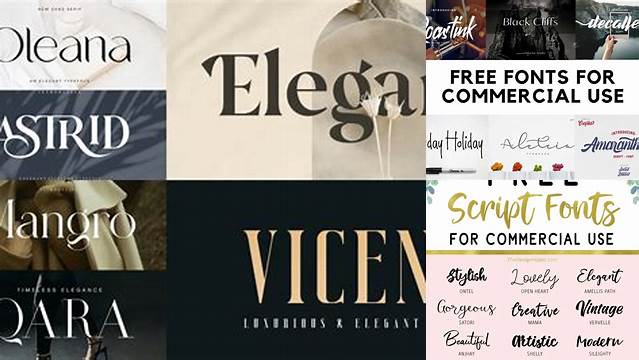
Download Free Elegant Fonts For Commercial Use
Hey there, design enthusiasts! Are you on the hunt for some stunning fonts to elevate your projects without breaking the bank? You're in the right place! Finding elegant fonts free for commercial use can be a game-changer for any designer, small business owner, or anyone looking to add a touch of sophistication to their work. This article is packed with resources and insights to help you find the perfect fonts to make your designs shine, all while staying within your budget. Get ready to explore the world of free, elegant fonts and take your creative projects to the next level!
3. Defining "Elegant" in Font Styles
What makes a font "elegant" anyway? It's all about the subtle details. Elegant fonts often have characteristics that convey sophistication, grace, and timelessness. Think of features like delicate serifs, flowing scripts, and clean, modern sans-serifs. Serif fonts, with their small strokes at the ends of letters, often evoke a sense of tradition and refinement. Script fonts, which mimic handwriting, can add a touch of artistry and personalization. Sans-serif fonts, those without serifs, can be incredibly elegant when they are well-designed, with clean lines and balanced proportions. The key is to choose fonts that complement your overall design aesthetic and the message you want to communicate. For instance, a classic serif font might be perfect for a high-end brand, while a modern sans-serif could be ideal for a tech company's website. The best elegant fonts avoid being overly ornate, which can make them difficult to read. Instead, they focus on a balance of form and function, making them visually appealing and easy to engage with. Consider how the font looks at different sizes, and how it pairs with other design elements. This ensures the font contributes positively to the overall user experience.
4. Serif Fonts for Sophisticated Designs
Serif fonts are the backbone of many elegant designs. They carry a sense of history, authority, and classic appeal. Several serif fonts are readily available for free commercial use and are perfect for projects that require a touch of sophistication. Baskerville is a timeless classic, known for its elegance and readability. Playfair Display offers a more contemporary take, with high contrast and a stylish appearance. Lora is another beautiful choice, designed specifically for screen readability, making it great for website content. Crimson Text is a free alternative to the renowned Garamond font, known for its legibility and grace. Georgia, often included as a system font, is another excellent choice for longer-form content, providing a sense of refinement without being overbearing. To choose the right serif font, consider the tone of your project. For a formal or high-end brand, a more traditional serif like Baskerville might be perfect. For something more modern, but still elegant, Playfair Display or Lora would be great choices. Always make sure the font has good character spacing and that it is readable at various sizes. Pairing a serif font with a clean, simple sans-serif font for headers can create a visually balanced and sophisticated look. The goal is to find a serif that compliments your project goals. By selecting a suitable serif, you can elevate your designs to be more elegant and impactful.
5. Script Fonts: Adding a Personal Touch
Script fonts, with their flowing lines and graceful curves, bring a personal and artistic touch to any design. When used carefully, these fonts can inject a sense of elegance, romance, or creativity. Many free script fonts are available for commercial use, offering a range of styles from delicate calligraphy to bold brushstrokes. Great Vibes is an elegant calligraphic script perfect for wedding invitations and romantic designs. Dancing Script offers a more informal, yet still elegant, handwritten feel. Satisfy is a more playful brush script, ideal for branding that requires a touch of whimsy. Pacifico is a vintage-inspired script that is perfect for retro designs. However, it’s important to use script fonts sparingly, as they can be difficult to read in large blocks of text. They work best for headlines, titles, and short pieces of text where you want to make a visual statement. When choosing a script font, consider the personality of your project and the readability. If the font is hard to read, it won't serve its purpose. Make sure the script font you choose pairs well with a clean sans-serif or a classic serif font. This contrast helps balance the design and makes the script font stand out. Think about how the script font can enhance your brand's message. With the correct use, a script font can provide your designs with a distinctive, elegant flair that resonates with your audience.
6. Modern Sans-Serif Fonts for a Clean Look
Sans-serif fonts offer a clean and contemporary aesthetic, making them a popular choice for modern, elegant designs. These fonts lack the serifs, making them sleek and easy to read, particularly on screens. There is an array of free sans-serif fonts that can be used in commercial projects. Open Sans is a versatile and highly readable option, often used for website content. Lato is another popular choice, known for its balanced proportions and friendly appearance. Montserrat is a geometric sans-serif font that works well in headings and display text. Raleway is a stylish and modern font, perfect for branding and headlines. The key to using sans-serif fonts elegantly is to choose ones that are well-designed and have good legibility. Look for fonts with a good x-height (the height of the lowercase letters), which impacts readability. They are ideal for projects where you want to create a sense of professionalism and clarity. Consider how the font pairs with other elements of your design. A clean sans-serif font pairs well with bold colors and images. When choosing a sans-serif, make sure the font has good character spacing and weight variations. This will ensure that your design will be visually cohesive. By choosing the proper sans-serif fonts, you can create a clean, modern, and elegant look that will enhance your brand identity.
7. Font Pairing: Combining Styles Effectively
One of the secrets to elegant design is effective font pairing. Choosing two or three fonts that complement each other can significantly improve your project's visual appeal. Consider combining a serif font for headings with a sans-serif font for body text, or vice versa. This contrast creates visual interest and improves readability. When pairing fonts, look for fonts that have different personalities but share some visual traits. For example, you could pair a classic serif like Baskerville with a clean sans-serif like Open Sans. Or, for a more modern look, you could pair a geometric sans-serif like Montserrat with a more flowing script. Google Fonts is an incredible resource for discovering font pairings. You can browse their collection and see examples of fonts paired together. Think about the contrast between the fonts you choose. A high contrast between a font used for headlines and another for the body text is important for your design. When pairing fonts, remember the overall message you want to convey. The fonts should work together to create a cohesive look that supports your brand identity. Avoiding pairing fonts that are too similar, as this can create a look that is dull and uninspired. Experimenting with different combinations to discover what resonates most. Once you have found the right combination, you can create a unique and visually appealing design.
8. Using Fonts to Enhance Brand Identity
Fonts are a crucial element of your brand's identity. They help create a distinctive look and feel that reflects your brand's personality. The elegant fonts free for commercial use that you choose should align with your brand's values, tone, and target audience. A classic serif font might be perfect for a luxury brand, while a modern sans-serif could be ideal for a tech startup. For branding, it is important to create consistency across all your marketing materials. Use the same fonts consistently across your website, social media, and printed materials. This will make your brand recognizable and build trust with your audience. Make sure the fonts are aligned with the overall brand strategy. They should reinforce the messaging and values you want to communicate. In addition to choosing fonts, also consider how you will use those fonts. Use the font that is for headings, and another for the body text. Ensure that your brand guidelines includes the fonts to use. This will help your brand's visual identity by ensuring that it looks consistent across all platforms. By carefully selecting fonts and implementing them consistently, you can create a strong brand identity that will help you stand out.
9. Best Practices for Typography in Web Design
Typography plays a crucial role in web design, impacting readability, user experience, and overall aesthetic. When choosing elegant fonts free for commercial use for your website, prioritize readability above all else. Select fonts that are easy to read on screens, at various sizes, and weights. Sans-serif fonts are great for body text, especially on websites, as they are often better at display on screens. Make sure your website's font size is large enough for easy reading on all devices. Use appropriate line height and spacing to improve readability. Too little spacing can make text appear cramped and difficult to read, while too much spacing can make text lose its unity. Optimize your website for different devices. Use responsive design to ensure your fonts look good on desktops, tablets, and mobile devices. Use headings, subheadings, and bullet points to break up large blocks of text and guide readers through your content. Ensure your website's font has good character spacing. Test your website's font on different browsers and devices to make sure it looks consistent. By following these best practices, you can create a visually appealing website with great typography that enhances user experience and keeps visitors engaged.
10. Avoiding Common Font Mistakes
Even the most skilled designers can make mistakes when using fonts. Avoiding common font mistakes can help you create professional and effective designs. One of the most common mistakes is choosing fonts that are hard to read. Always prioritize readability, especially for body text. Another mistake is using too many fonts. Stick to two or three fonts at most, and use them consistently throughout your project. Don't overuse font weights or styles, which can make your design appear cluttered. Always check font licensing before using them for commercial purposes. This will prevent legal issues later on. Avoid stretching or distorting fonts. This can make your design appear unprofessional. Make sure your fonts work well with your project's overall design aesthetic. Be consistent in your font usage. Always use the same font for headings, subheadings, and body text. Be mindful of your audience and their preferences. Don't choose a font that is difficult to read. Test your design on different devices. This will ensure your fonts look consistent on all devices. By avoiding these common font mistakes, you can enhance your design's professionalism.
11. Google Fonts: The Ultimate Free Resource
Google Fonts is, without a doubt, one of the best resources for finding elegant fonts free for commercial use. It offers a vast library of high-quality fonts, all available under the open-source license, which means they are free to use in your commercial projects. The user-friendly interface makes it easy to browse fonts by category, style, and popularity. You can preview fonts on your text and experiment with different sizes and weights. Google Fonts also provides information on font pairings, making it easier to find fonts that complement each other. The fonts are optimized for web use, which means they load quickly and render well on all devices. It's constantly updated with new fonts, which means there is always something new to discover. Google Fonts is a great resource for beginners and professionals alike. It's a great starting point for finding the perfect fonts for your projects. You can simply download the fonts from the Google Fonts website or embed them in your website using the provided CSS code. With its vast library, ease of use, and commercial-friendly licensing, Google Fonts is a must-have resource for any designer.
12. Customizing Your Free Fonts
Even though you're starting with free fonts, there's often room for customization to make them uniquely yours. While you can't usually modify the core design of a font, you can change the size, color, and weight to fit your design. Some design software allows you to make limited customizations to fonts, such as adjusting the kerning (the space between letters) or tracking (the overall space between letters in a word). Use different font weights and styles to add emphasis and create visual hierarchy. You can change the size of the fonts to highlight key information. You can also change the color of the fonts to match your brand identity. You can experiment with different backgrounds and textures to make your fonts stand out. If you're using the font in a logo, consider how it can be adapted to create a unique brand mark. For example, a simple adjustment to spacing or a combination with another element can make a font stand out. Use design software such as Adobe Illustrator or Photoshop to add effects such as shadows, outlines, or gradients to your font. When customizing your fonts, it’s crucial to maintain readability and ensure your modifications enhance, not detract from the original design. By customizing your fonts in subtle, yet impactful ways, you can create designs that look unique.
13. Elegant Fonts in Branding and Logos
Elegant fonts are a cornerstone in the creation of professional and visually appealing brands and logos. When choosing fonts for branding, it is important to select fonts that reflect your brand’s personality and values. A font should communicate the essence of your brand. Choose a font that resonates with your target audience. Choose fonts that are legible at various sizes. You must also consider the overall design of the logo and how it will look in various applications, such as on websites, business cards, and packaging. Consider the long-term impact of your logo. Make sure that your logo is designed to last. For logos, choosing a font that has a strong visual impact is key. Make sure your logo reflects your brand's personality. For luxury brands, consider using a serif font that communicates elegance. For modern and tech brands, select sans-serif fonts, conveying a sense of modernity. Your logo should be memorable. Make your logo reflect the unique qualities of your brand. Your logo should be consistent with your brand guidelines. By carefully selecting fonts and implementing them consistently, you can create a powerful visual identity that will resonate with your audience and make a lasting impression.
14. Finding Inspiration: Font Design Trends
Staying updated on font design trends can help you select the most relevant and visually appealing fonts for your projects. Keep up with current trends. Look at websites, magazines, and social media for design inspiration. Experiment with different styles. See what is trendy. Stay aware of popular font styles. Explore the use of custom fonts. See if the trends will complement your projects. Be informed about the latest design trends to help you make informed decisions about your font choices. By staying informed, you can ensure that your designs are current and engaging.
15. Font Licenses: Understanding the Fine Print
Understanding font licenses is crucial for avoiding legal issues and ensuring that you can use your chosen fonts in your commercial projects. Read the fine print, always. Understand the scope of the license. Learn about the usage restrictions. Some licenses permit use in web design and print materials, while others restrict the use of the font for specific applications. Be aware of any restrictions on the modification of the font. Some licenses may have limitations on the use of fonts in your logo. Stay informed about updates to the font license. By carefully reviewing and understanding the license, you can ensure compliance and avoid potential legal troubles.
16. Testing and Previewing Your Chosen Fonts
Before committing to a font, test and preview your chosen fonts thoroughly to ensure they meet your design requirements. The best way to test your font is by trying it in various contexts. Evaluate the font's legibility at various sizes. Consider how the font looks in your design. Check the font in different browsers. Make sure the font works well on different devices. Preview the font in different applications. Check the font with different designs. You must test the font's overall look to ensure it matches with your design's aesthetic. By following these steps, you can ensure your design's professionalism.
17. Font Management: Organizing Your Library
Once you start collecting elegant fonts free for commercial use, efficient font management is essential. Organize your fonts into folders and categories to easily find what you need. Use a font management software like Adobe Font Folio or FontBase to manage your font library. These programs allow you to organize, activate, and deactivate fonts with ease. Tag your fonts to classify them by style, purpose, or licensing terms. Keep your fonts updated to ensure you always have the latest versions with the latest features. Back up your fonts on the cloud. When you organize your font library, your designs will be more accessible.
18. Best Fonts for Websites
Choosing the best fonts for websites involves prioritizing readability and user experience. Consider the website's overall design and target audience. For websites, sans-serif fonts are usually a great option because they are easily readable on screens. Choose a font with different weights and styles to add visual interest. A font with different weights and styles will make your website visually engaging. Ensure your fonts are optimized for web use, meaning they load quickly and render well on all devices. Test your fonts on various browsers and devices to ensure consistency. Also, make sure the fonts you choose support the characters and languages required for your website. By focusing on readability, accessibility, and visual appeal, you can create a website that is both beautiful and user-friendly.
19. Fonts for Print Materials
When selecting fonts for print materials, consider factors specific to the printing process, such as ink and paper. Serif fonts can be excellent choices for print materials, adding a sense of elegance and readability. Choose a font with enough weight and clarity to be easy to read. Test the font in a physical print test. Consider the paper and ink choices. The font's appearance can be significantly affected by the paper and ink colors. Ensure your chosen fonts are of high quality and optimized for print. Always make sure the fonts are readable. For important details like contact information, a readable font is essential. By following these steps, you can create visually striking print materials.
20. Integrating Fonts into Design Software
Integrating elegant fonts free for commercial use into design software is usually straightforward. Once you have downloaded the fonts, they are typically installed in the font folders of your operating system. When you open up your design software, such as Adobe Photoshop or Canva, the new fonts should appear in the font menu, ready to use. If you use a font management software, the font should be accessible through that. By following these steps, you can have all your fonts ready for design in an instant.
21. The Importance of Font Weight and Styles
Font weight and styles are critical for creating visual hierarchy and adding emphasis to your designs. Different font weights (light, regular, bold, etc.) help organize information and guide the reader's eye. Bolding a font is useful for highlighting key points. Use italics to set apart text. It's important to use various styles. Make sure that you don't overuse them. By carefully using font weight and styles, you can make your designs much more impactful and readable.
22. Choosing Fonts That Match Your Project's Tone
The tone of your project will greatly influence your font choices. The font can affect the mood of your design. Choose a font that suits the overall tone of your project. For a classic feel, consider serifs. For a modern or tech project, select a sans-serif font. When it comes to choosing the right font, the goal is to communicate a message through the tone of your design. Your project's design should feel cohesive. By choosing a font that complements the project's tone, you can create a design that resonates with your audience.
23. Accessibility: Font Considerations for Everyone
Accessibility should always be a consideration in design. Make your fonts easy to read. The font should be readable. Make sure your font is accessible to all users. Use a font size that is readable. Use a high color contrast between the text and the background. Use font styles, such as italics and bold. Check your font's legibility at different sizes and devices. Make sure that everyone can understand your design. By incorporating these practices, you can ensure that your design is as welcoming and inclusive as possible.
24. Free Font Alternatives for Popular Paid Fonts
There are often free alternatives to popular paid fonts, offering you the opportunity to achieve a similar look without the cost. Many websites offer free alternatives. Some free alternatives to Helvetica are Arial, Open Sans, and Lato. A free alternative to Gotham is Montserrat. Searching for these alternatives is a smart way to find elegant fonts free for commercial use while saving money. Explore the free font options to get a similar look. You can save money and achieve the look you want. Researching alternative fonts can open up creative possibilities for your designs.
25. The Psychology of Fonts: How Fonts Influence Perception
Fonts can greatly affect how your audience perceives your design. The font has the ability to evoke emotions and associations. Serif fonts can make people feel elegant. Sans-serif fonts often come across as modern. Research the psychological effects of fonts. By understanding the psychology of fonts, you can choose the best fonts for your project. By choosing the right font, you can connect with your audience on an emotional level.
26. Resources for Font Education and Training
If you want to dive deeper into the world of typography, you can find many resources for font education and training. Online courses, articles, and tutorials provide valuable information on typography. Read articles on typography. This will help you learn about the principles of typography. There are many online courses you can take that will help you learn about typography. You can become more knowledgeable about typography. This will help you to become a better designer.
27. Legal Considerations: Copyright and Licensing
When using elegant fonts free for commercial use, understanding the legal considerations of copyright and licensing is essential. Always verify the font’s license to ensure it permits commercial use. Be mindful of any restrictions. You should avoid any copyright issues. When using fonts, it is important to stay safe. Always be sure to respect the rights of the font designers. You can do so by complying with the legal requirements.
28. Font Trends: What’s Popular Now?
Keeping up with current font trends can help you stay current and relevant in your design projects. Current trends may be geometric sans-serif fonts. Other popular font choices may include hand-drawn fonts. Explore these trends to determine which ones align with your project’s aesthetic. Stay informed to create visually appealing designs. Staying informed about the latest font trends can keep you fresh and inspire creativity.
29. Troubleshooting Common Font Issues
When working with fonts, you may face some common issues. Make sure you have the right format, such as TTF or OTF. If you have problems with your font, try reinstalling the fonts. Make sure the font is active in your software. Clear your cache if fonts do not display correctly. Check your web browser. By following these steps, you can solve any font-related problems.
30. The Future of Fonts: What’s Next?
Looking ahead, the future of fonts is exciting, with new trends and technological advances emerging. Font design is continuing to evolve. Variable fonts offer designers flexibility and creative potential. As technology improves, font design will continue to be influenced by innovation. Consider the font's impact on design. Stay informed on the evolving world of fonts. By doing this, you can continue to make informed design choices. The font world is ever-changing, so it’s important to stay informed. This can help you create unique and effective designs. These steps will help you stay on top of all the latest trends.